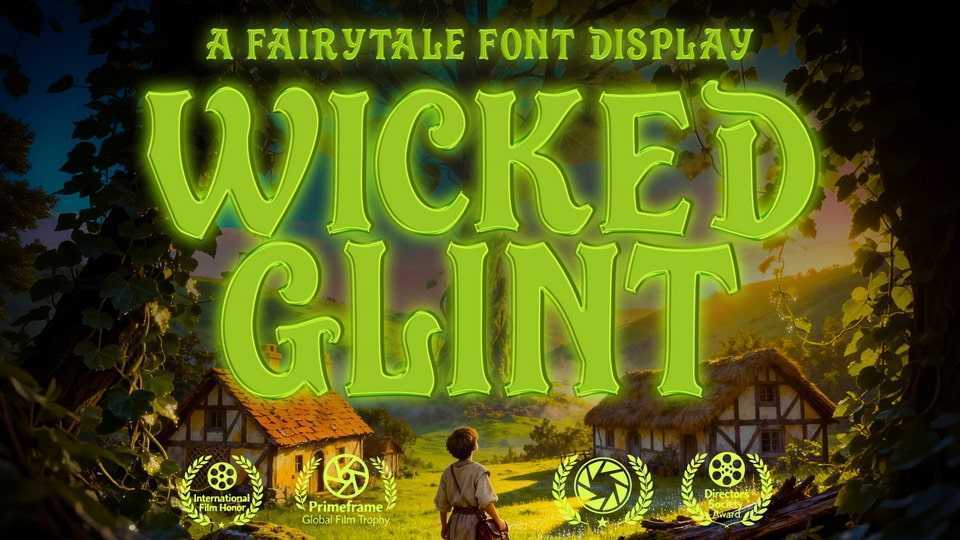
Download Wicked Glint font, a captivating fairytale display typeface inspired by enchanted forests, glowing spellbooks, and mystical adventures, designed with bold, whimsical serifs and subtly irregular strokes.